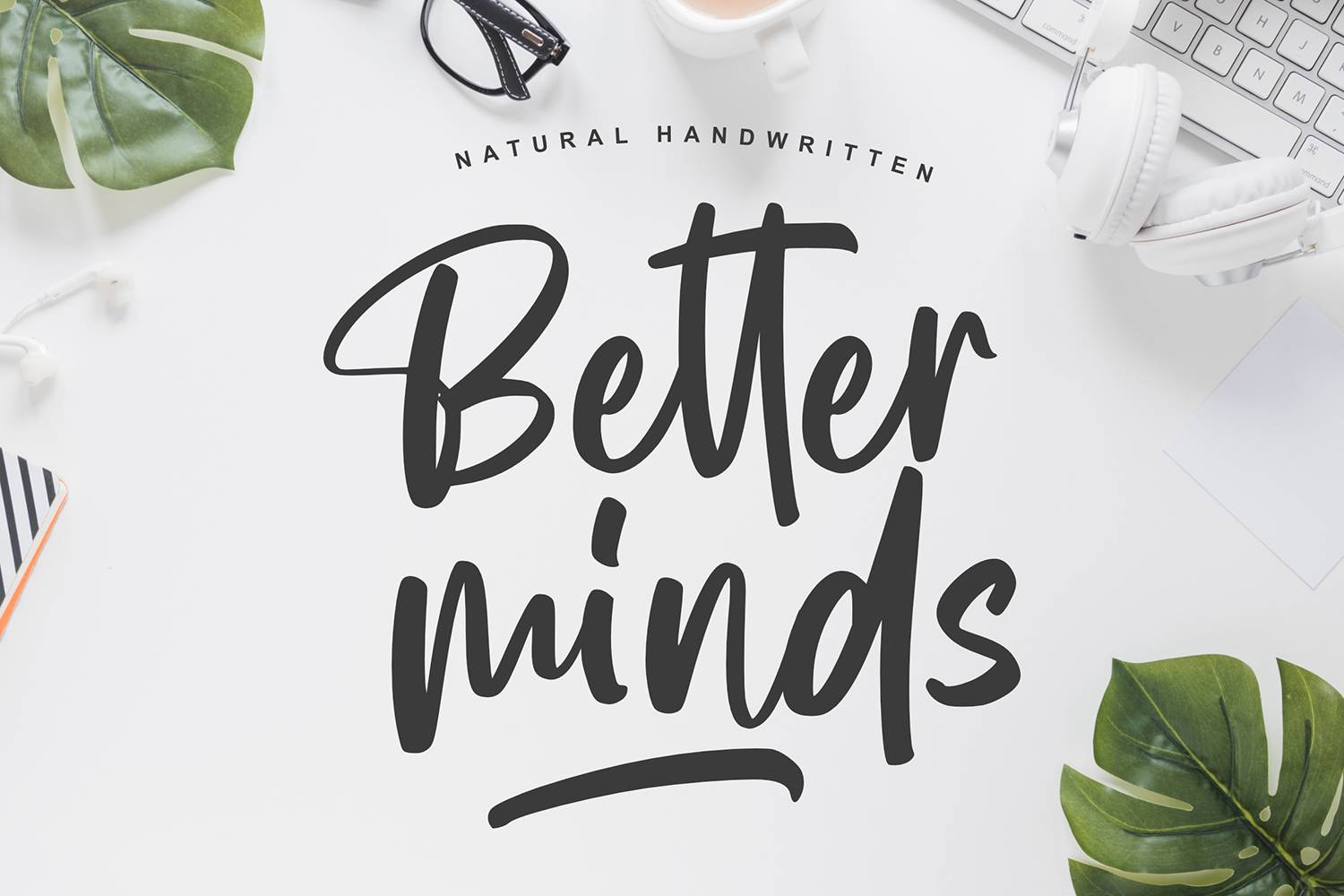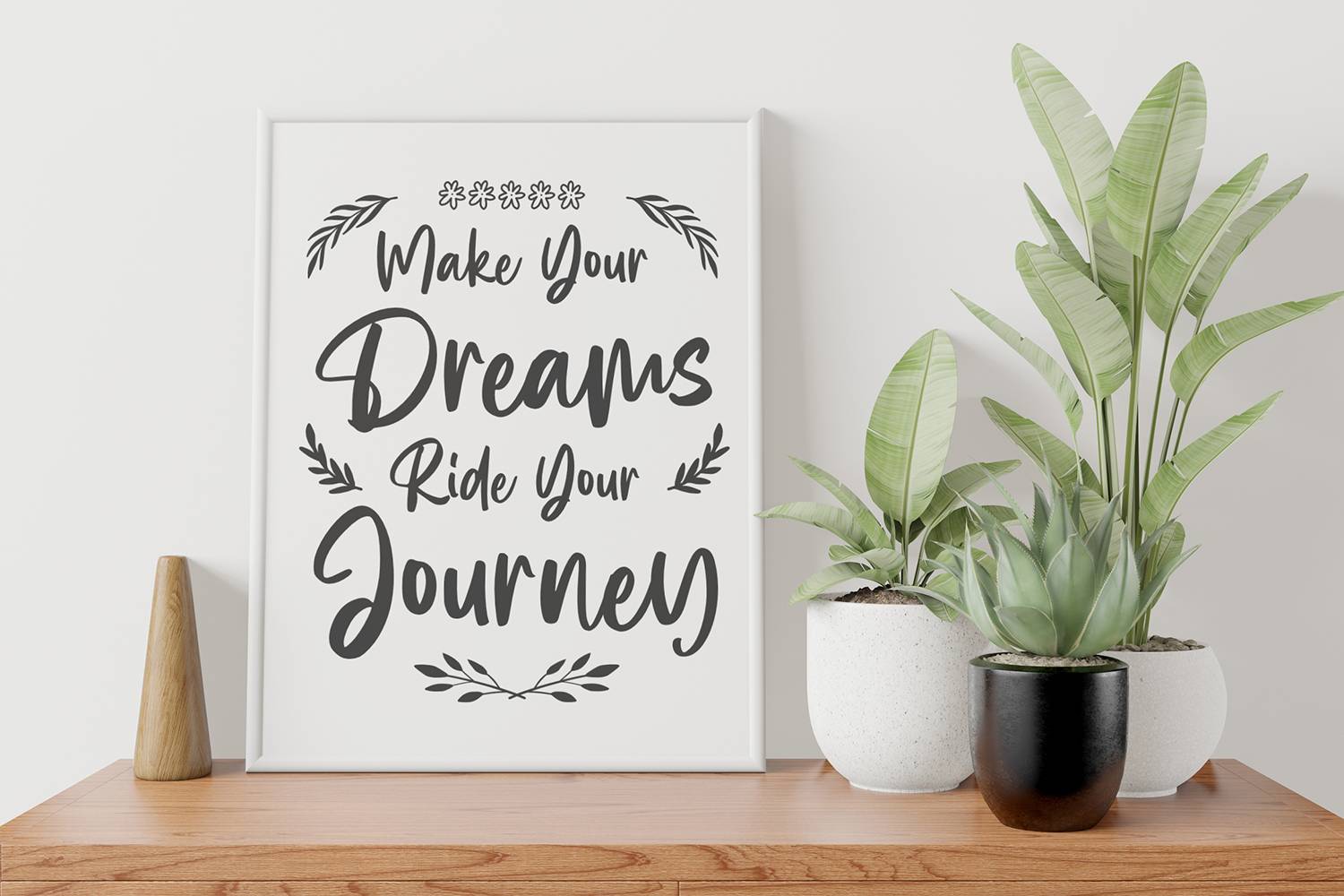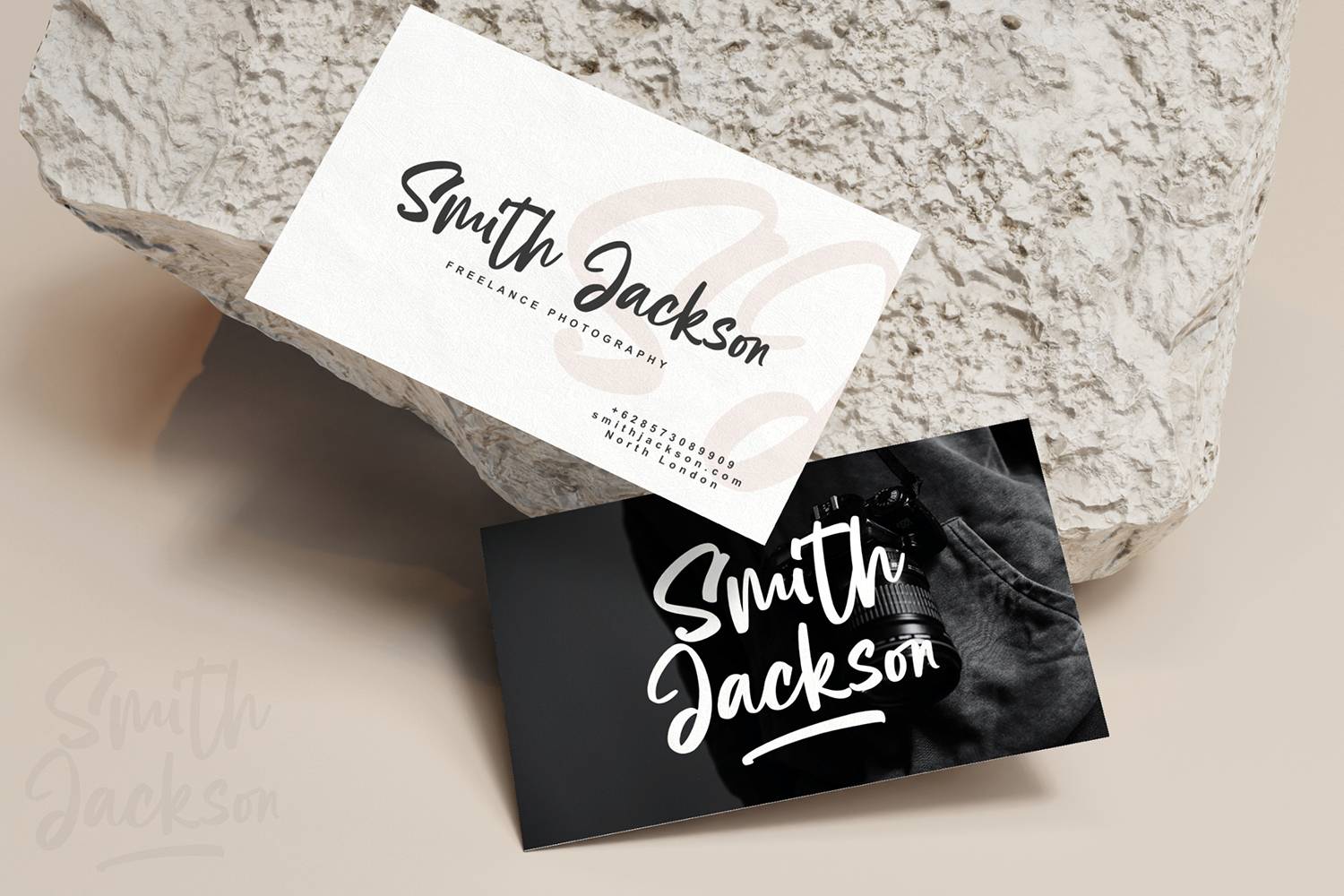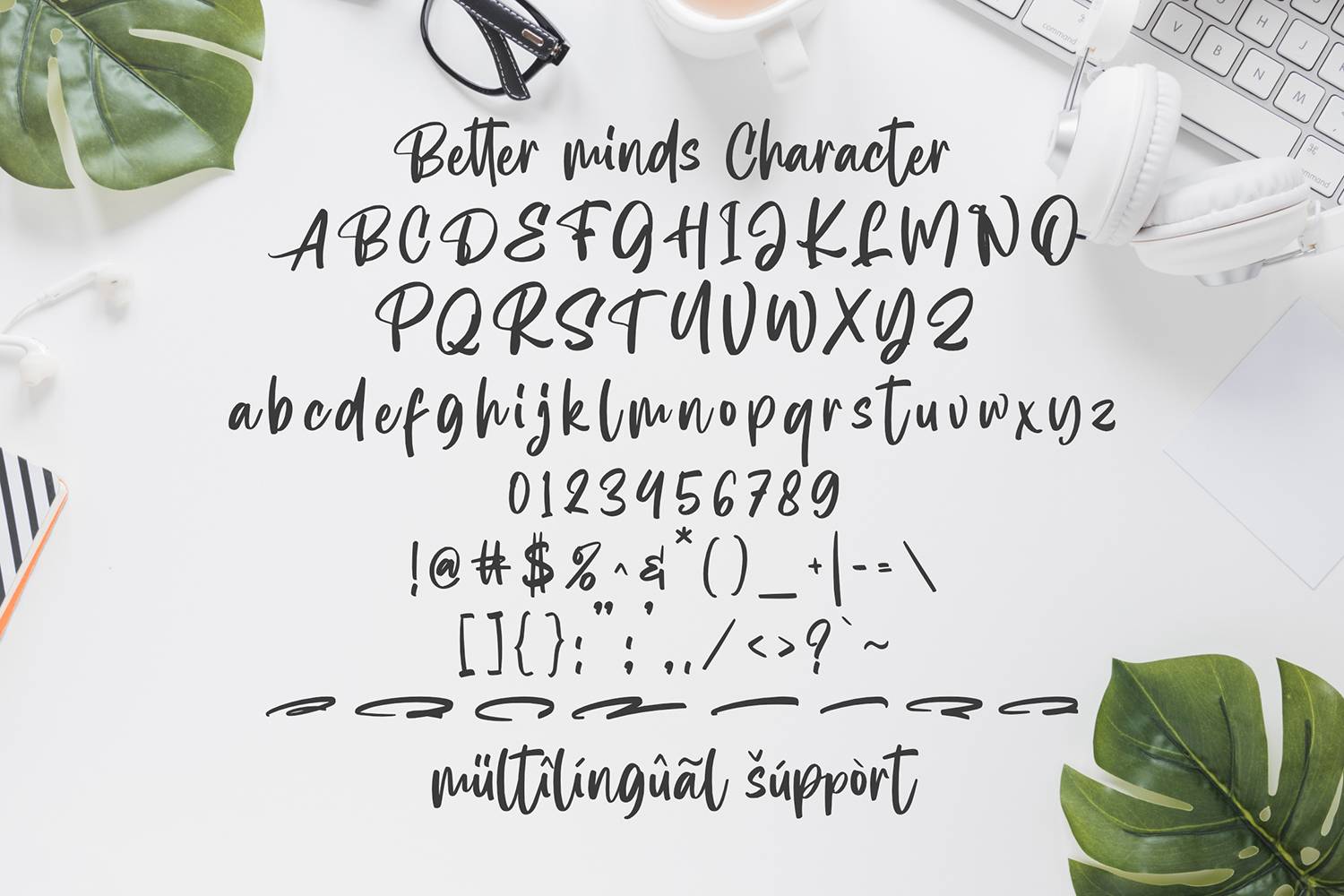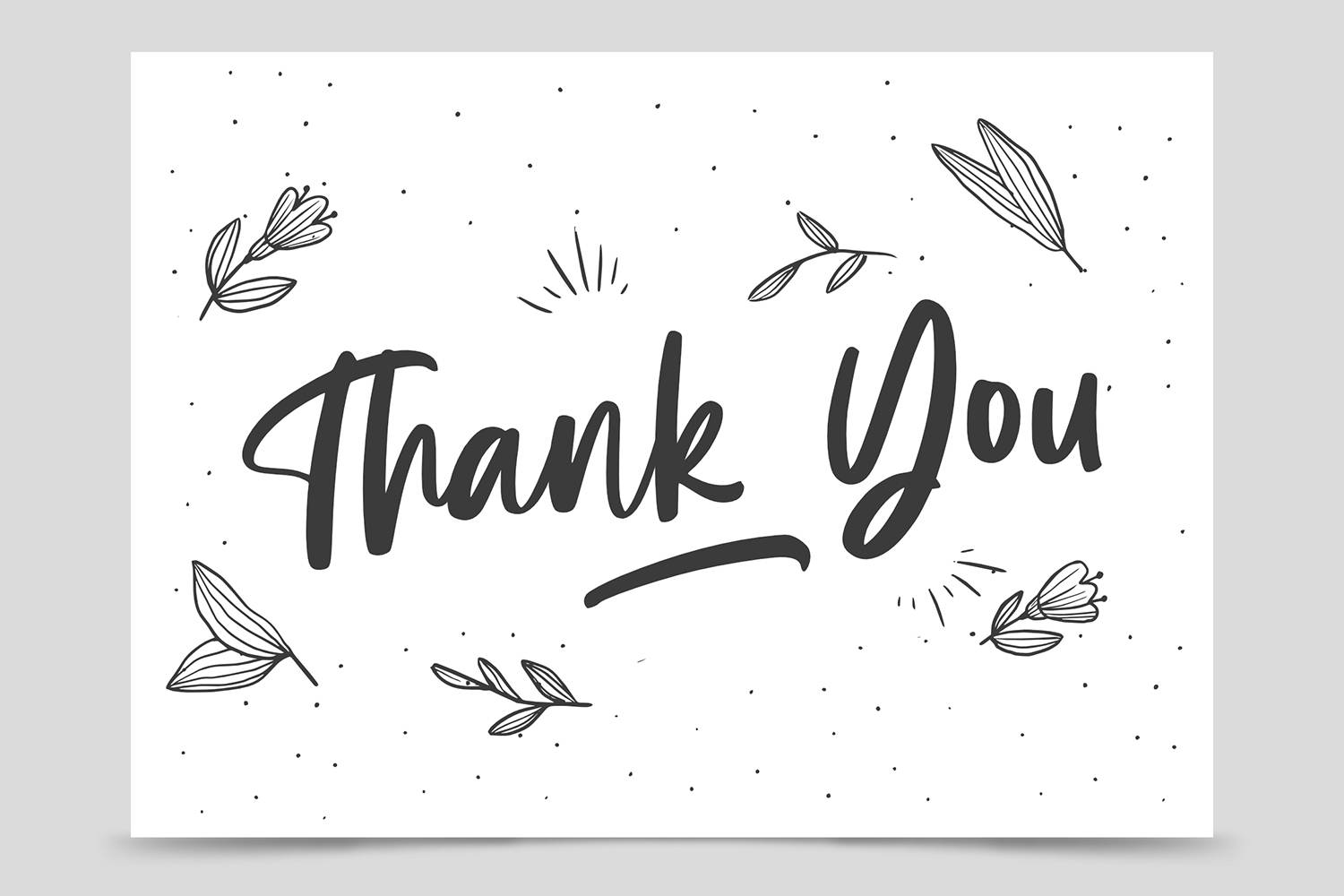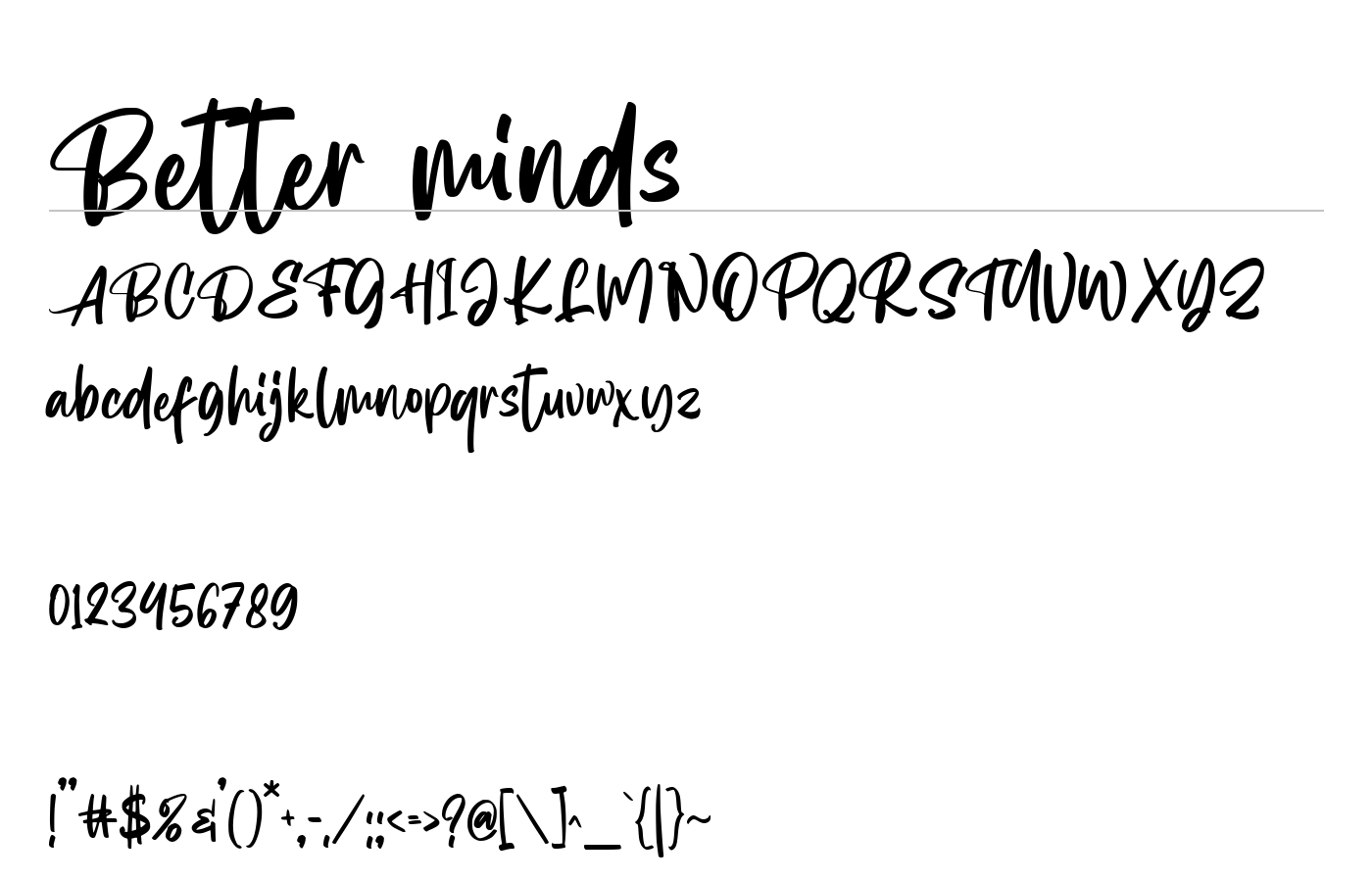
Better Minds is a lively and casual script font with a handmade feel, featuring bold, smooth strokes and playful, slightly irregular letterforms. Its friendly style and clear readability make it perfect for creative projects, branding, and informal headlines that need a personal and approachable touch. This font works well for social media, packaging, and logos looking to convey warmth and modern charm.
Better Minds Font
About Better Minds Font
| Font family | Better Minds Font |
| Designer | Ardian Nuvianto |